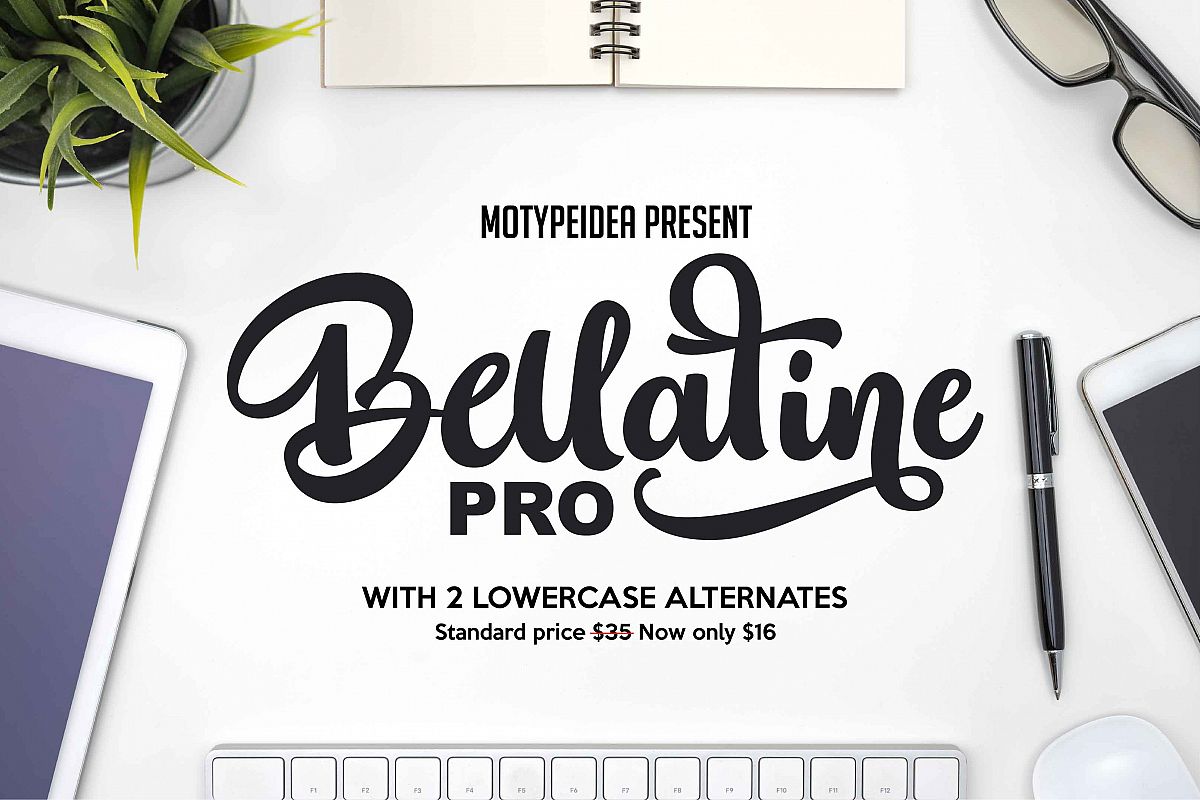
BELLATINE PRO
Bellatine Pro Alt 1
Bellatine Pro
Bellatine Pro Alt 2
interested in this font,The fonts are great for product logo,wedding
card logo, Banner, Graphic design, clothing brand logo, and much more.
BELLATINE PRO Font equipped with :
• Uppercase,
• lowercase
• lowercase Alternates
• numeral
• punctuation
• International Glyphs
• alternates